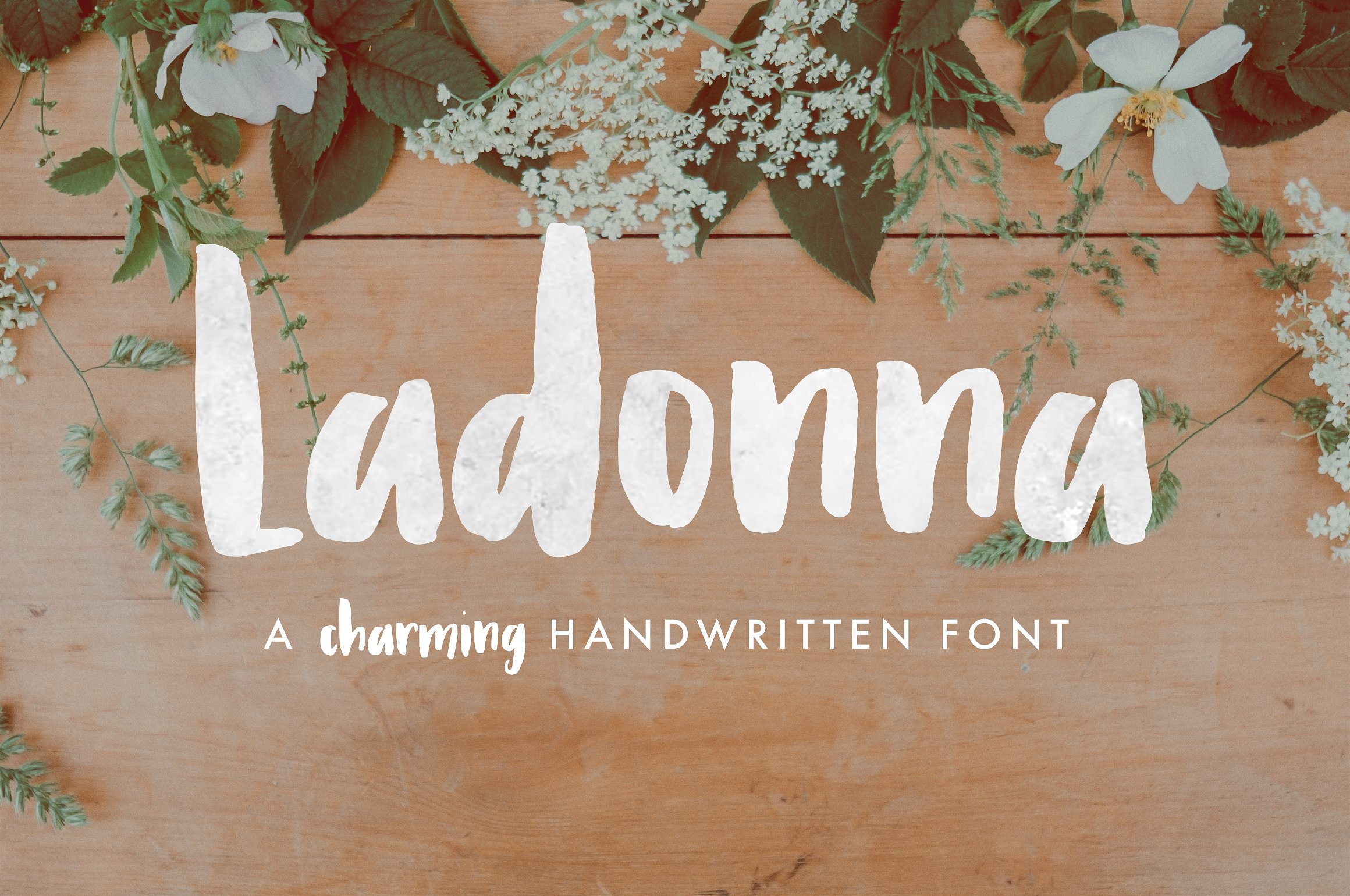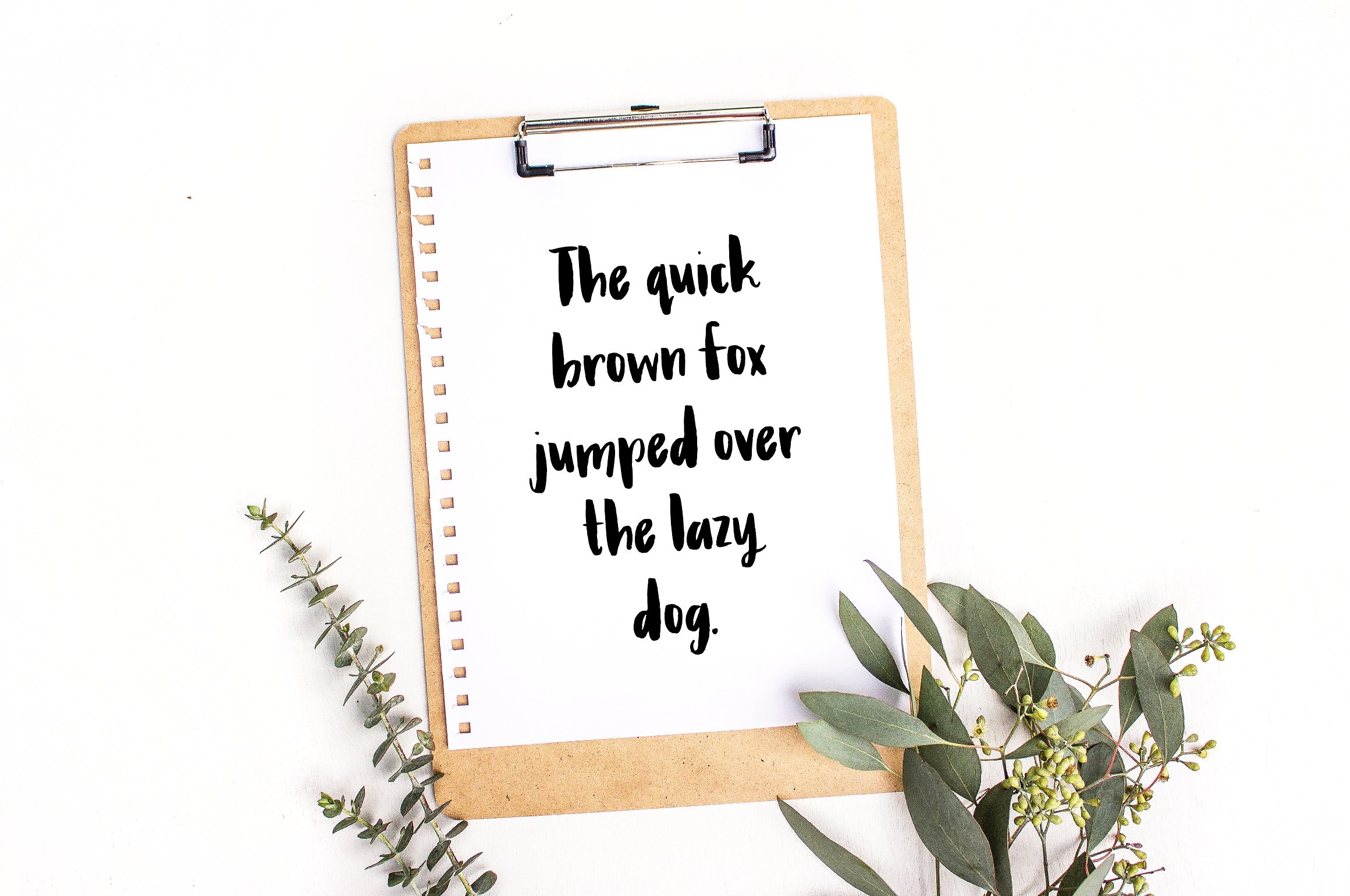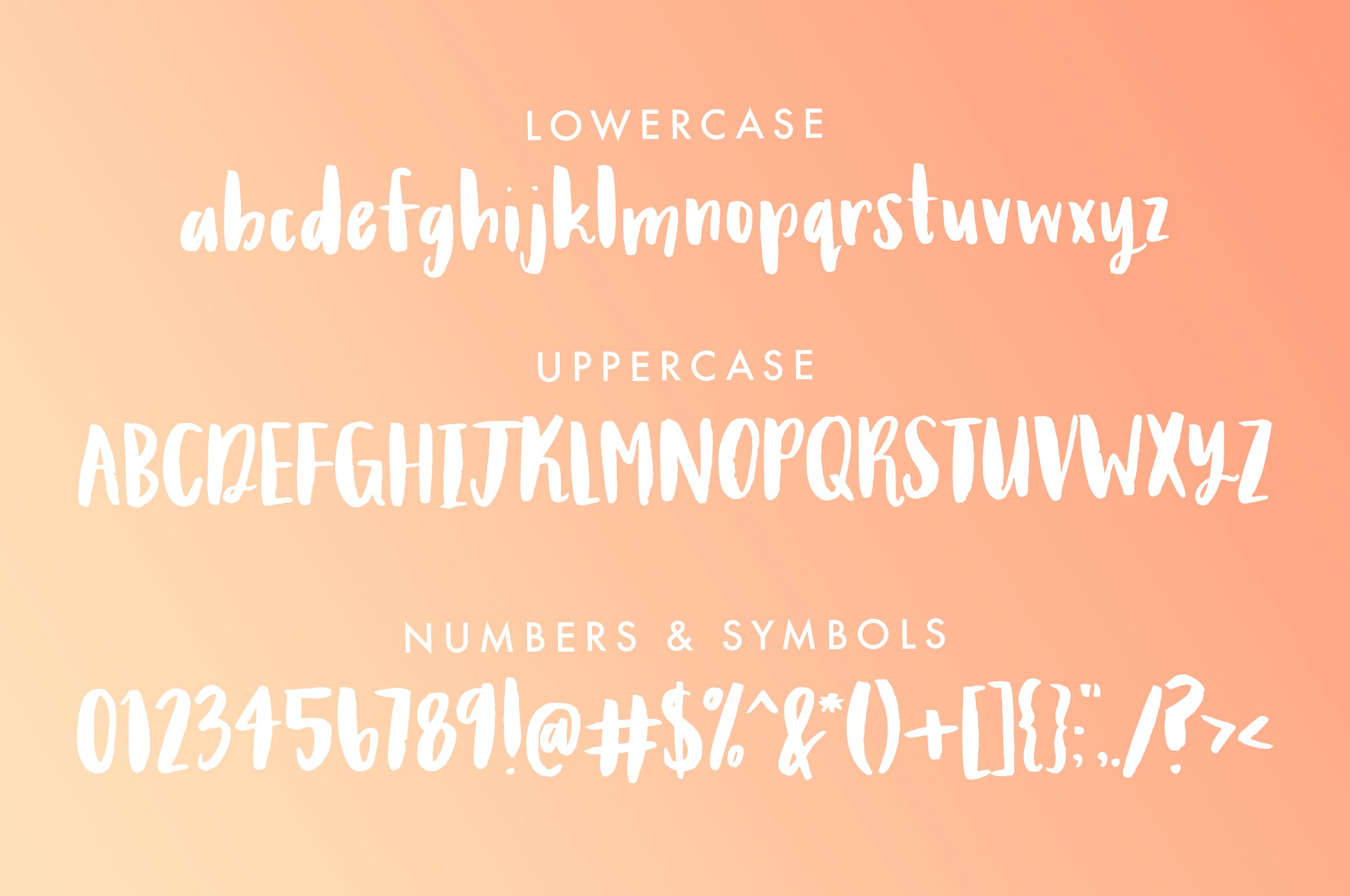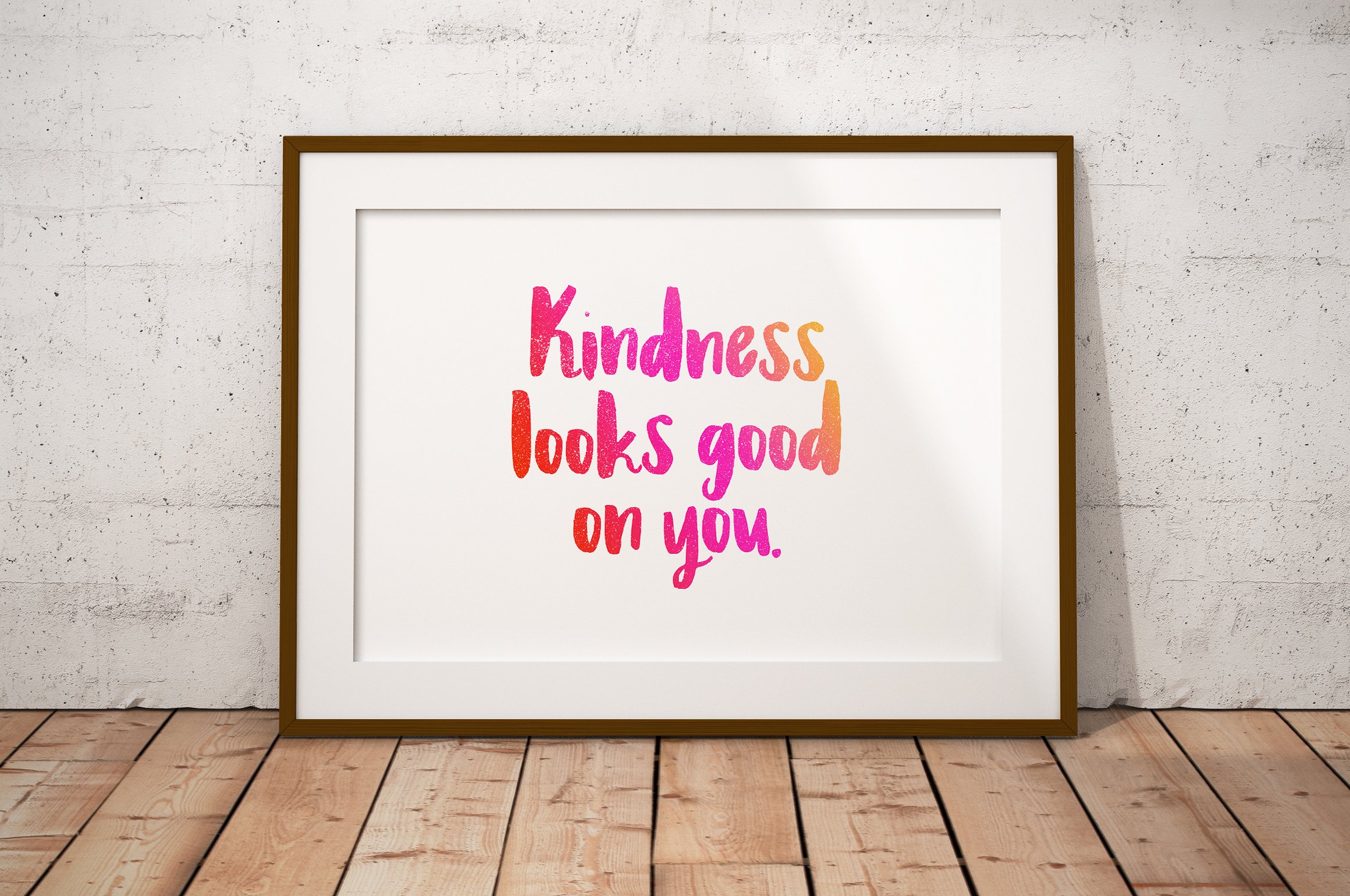
Ladonna Font
About Ladonna Font
Ladonna is a charming, fun font with lots of character. Inspired and created from brush lettering, this font has varying thicknesses, curvy features, and chunky letterforms. Ladonna contains upper & lowercase characters, numerals and a large range of punctuation and symbols.